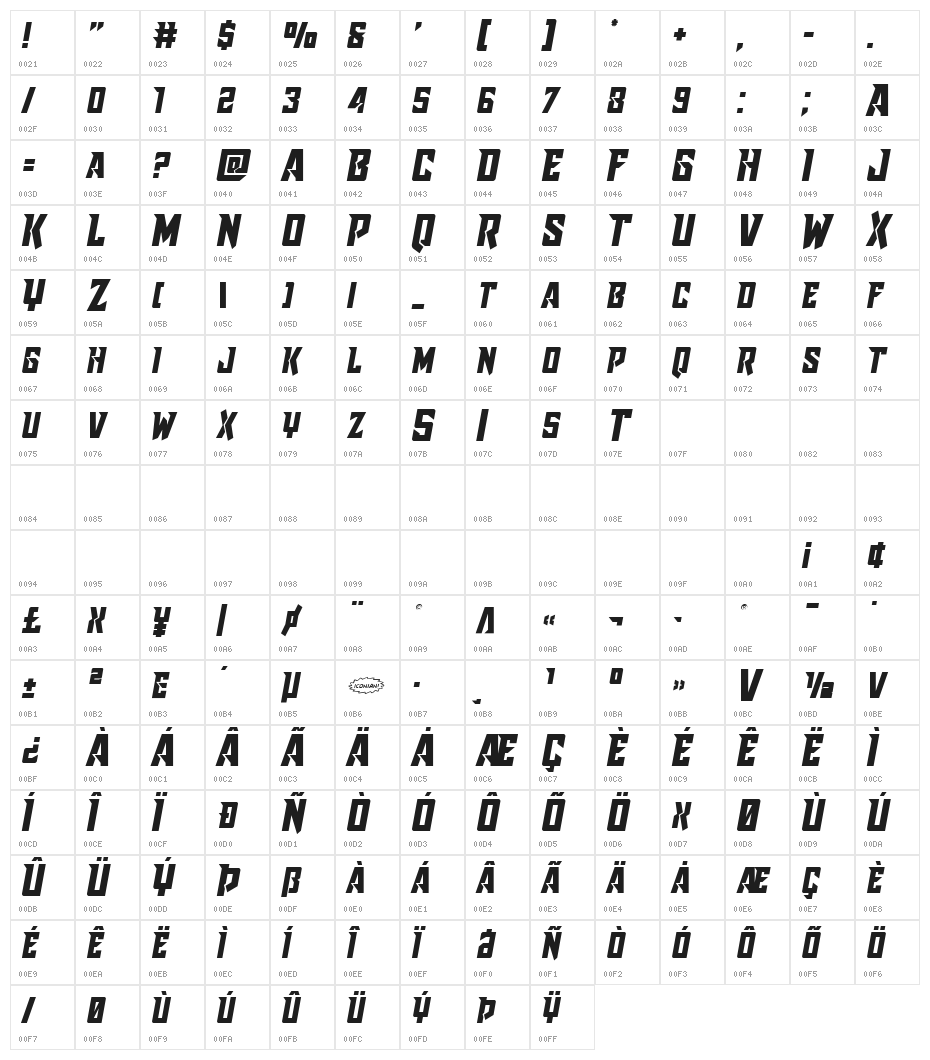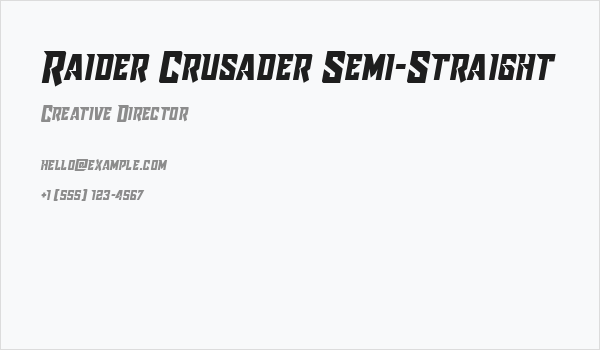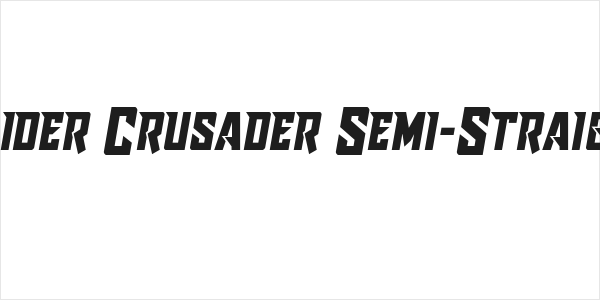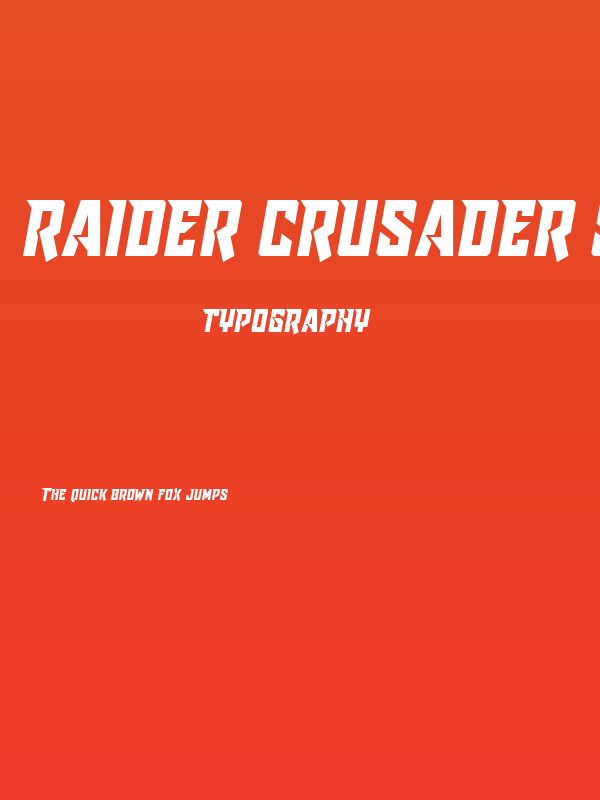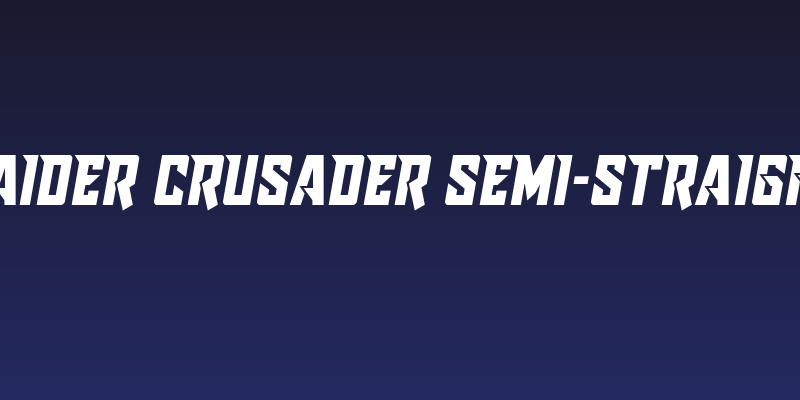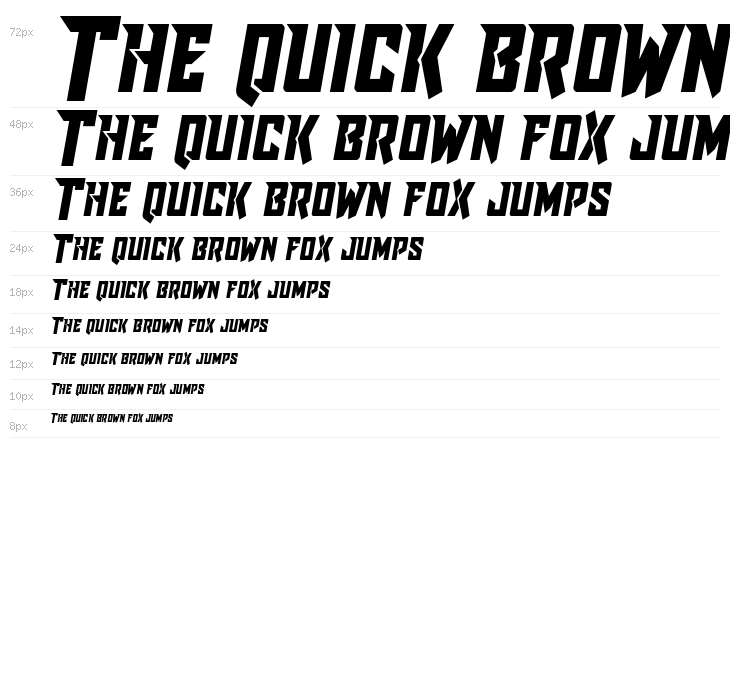
Raider Crusader Semi-Straight Font
Raider Crusader Semi-Straight Description
This font features a bold and dynamic design with sharp, angular edges and a strong presence. The characters are heavily stylized, with a distinct geometric influence that gives them a futuristic and aggressive appearance. The uppercase letters are particularly striking, with a consistent slant and thick strokes that convey a sense of power and movement. The numbers and special characters maintain this bold style, ensuring a cohesive look across all glyphs. The overall design is eye-catching and ideal for projects that require a strong visual impact.